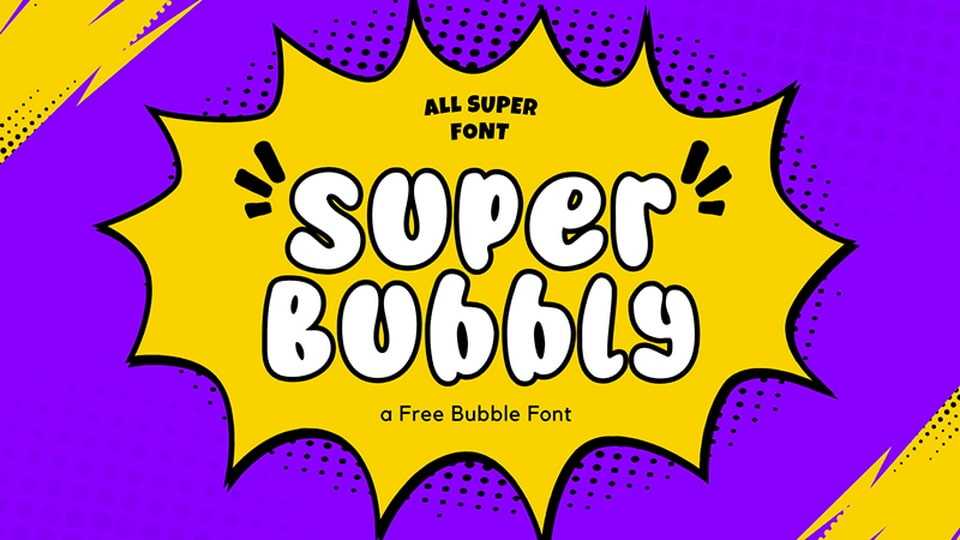
Download Super Bubble font, a playful hand-drawn typeface that bursts with fun and whimsy. Each letter is crafted with a soft, rounded form, reminiscent of airy bubbles.